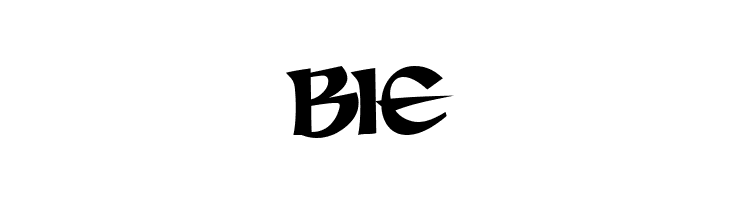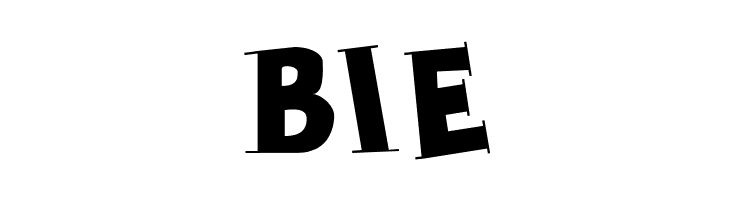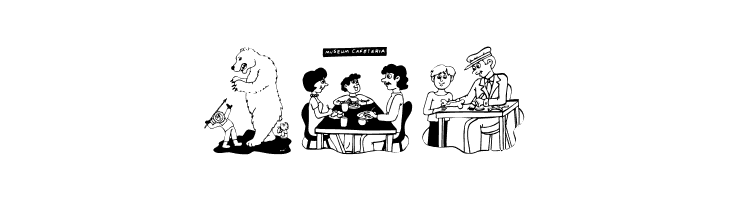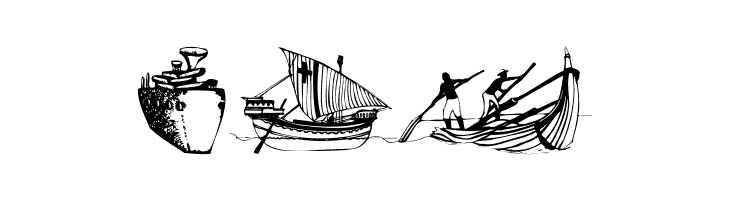
Intricate ship illustrations form each character in a maritime-themed decorative font.
Hand-drawn, museum-themed decorative font with illustrated characters.
A classic serif font with elegant, sharp serifs and subtle medieval influences.
A bold, playful serif font with exaggerated and irregular forms.
A bold, dynamic font with sharp, angular strokes and a dramatic flair.